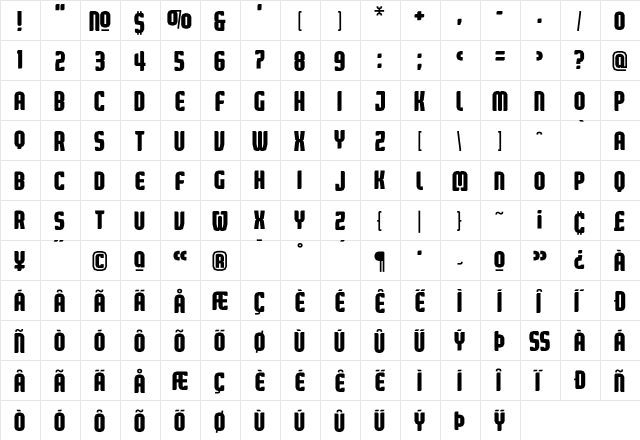
Judgement BlackCondensed
Design Context for Judgement Typeface
Judgement is a composed and adaptable typeface that performs quietly and consistently across a wide range of design contexts. Its narrow stance lets it pack a punch even in space-constrained designs.